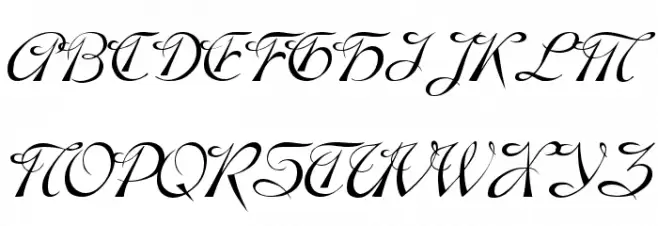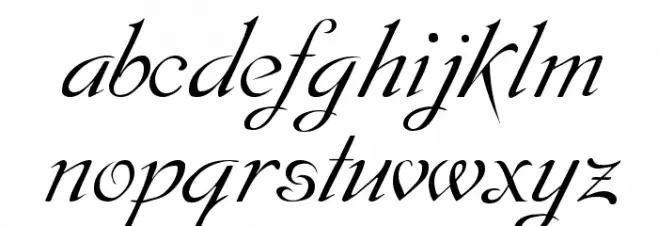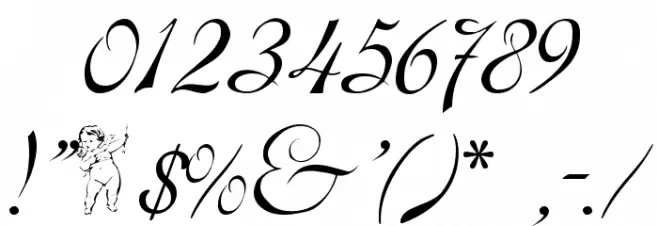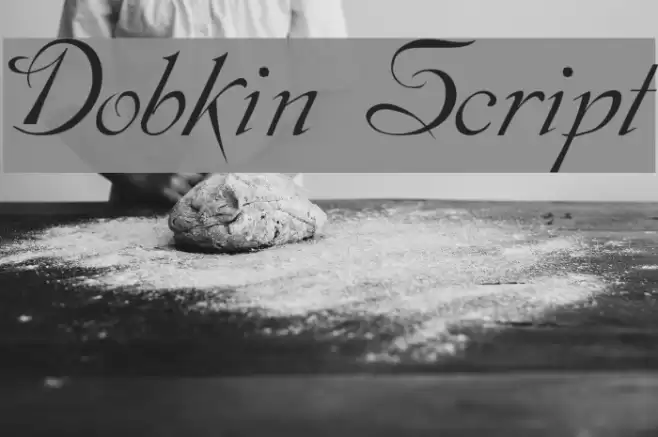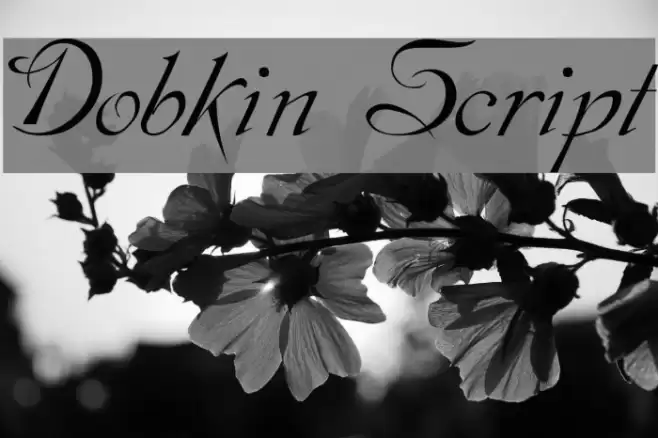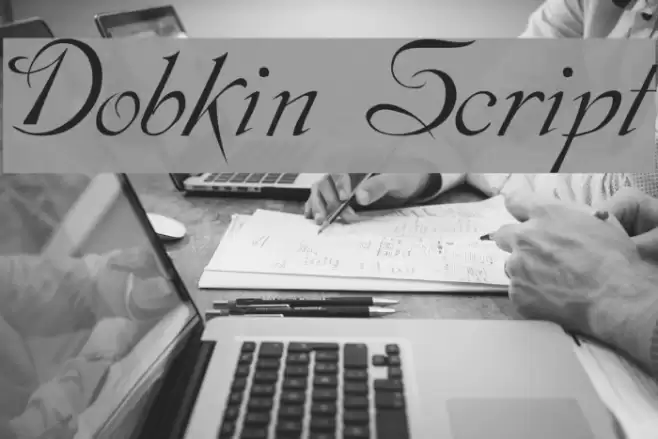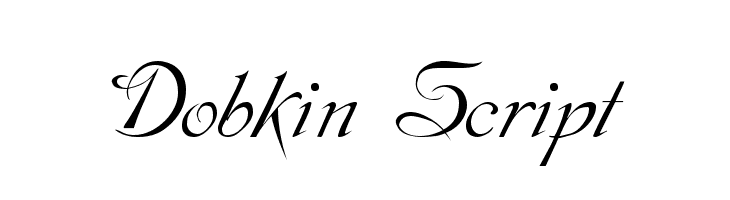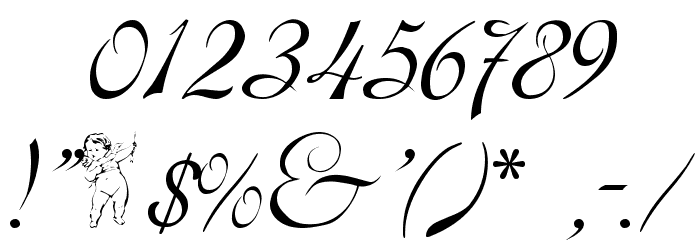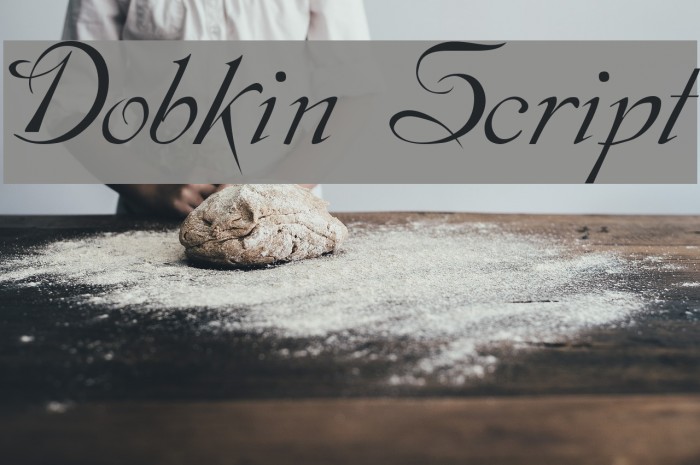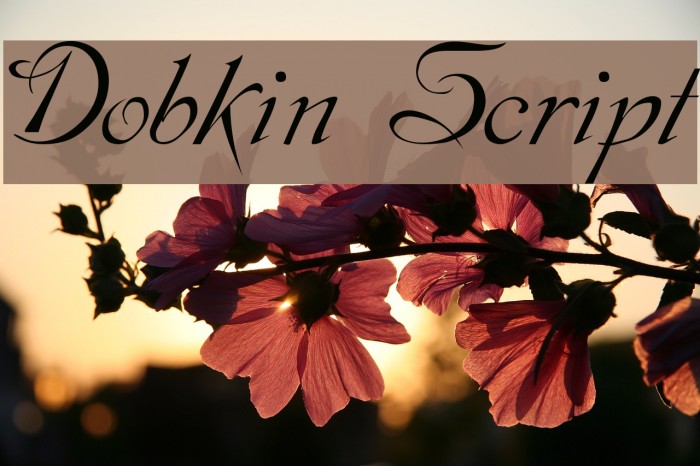
Dobkin Script
This elegant script font features a flowing, cursive style with intricate swashes and flourishes. The uppercase letters are particularly ornate, with exaggerated loops and curves that give a sense of movement and grace. The lowercase letters maintain a consistent slant, enhancing the font's fluidity and elegance. Numbers and special characters are designed with similar attention to detail, ensuring a cohesive look across all glyphs. The font's overall appearance is sophisticated and decorative, making it suitable for formal invitations, branding, and other projects that require a touch of elegance.
An elegant script font with flowing, ornate swashes and flourishes.
- Proposed Projects: Ideal for wedding invitations, luxury branding, greeting cards, and elegant packaging.
- Category: Script
- Contrast: High
- Overall Style: Decorative
- Use Case: Logos, Invitations, Decorative text